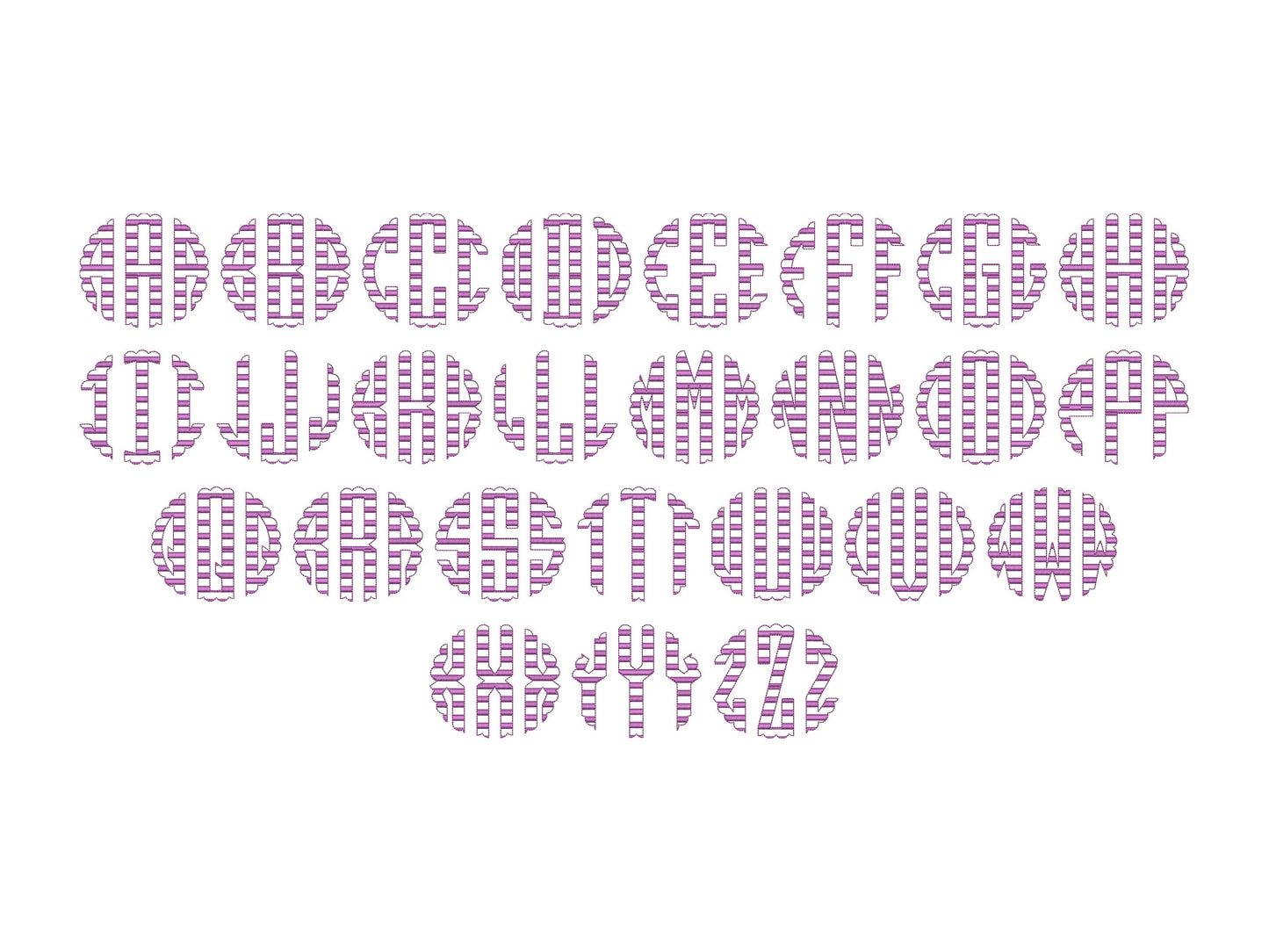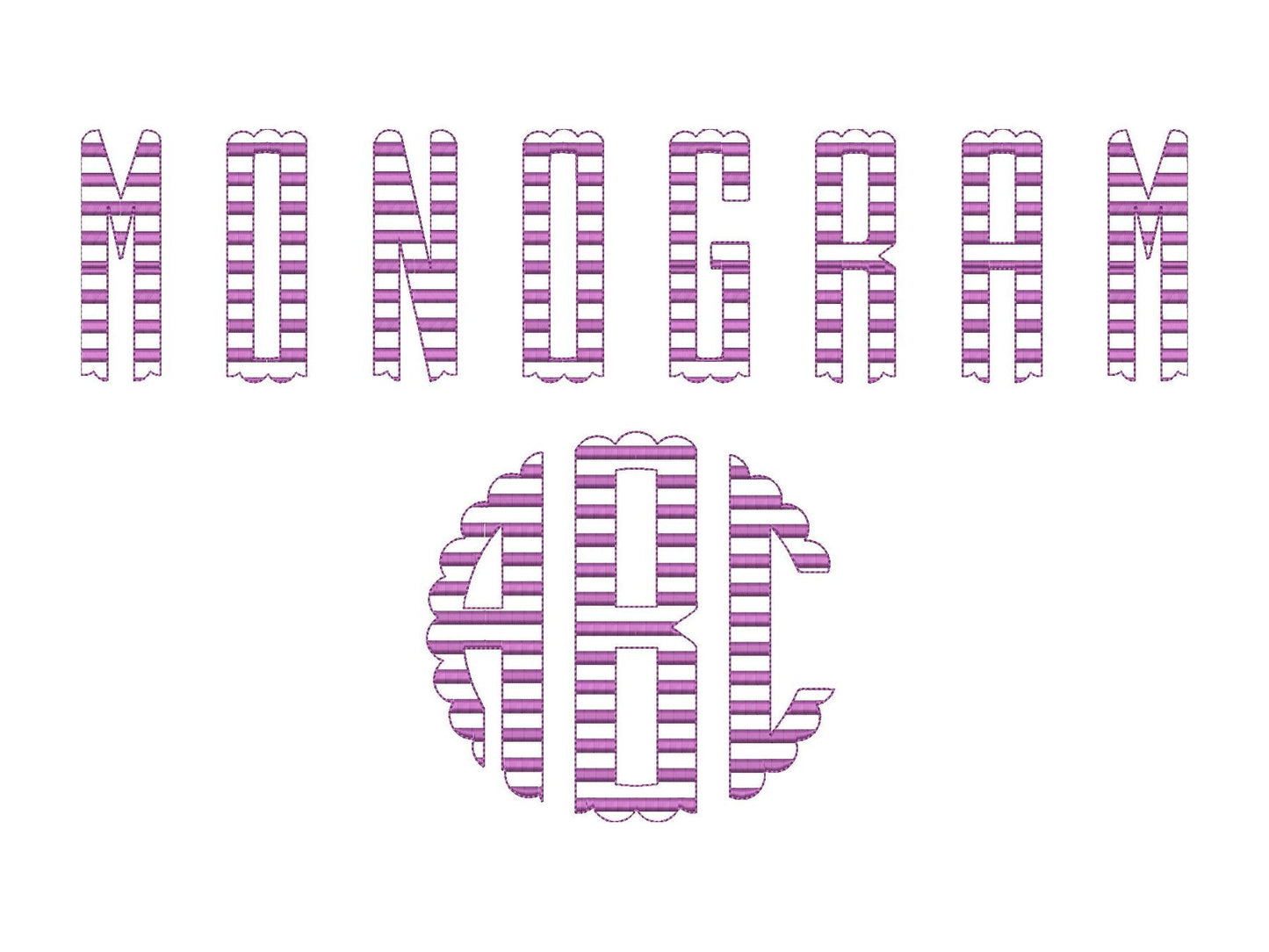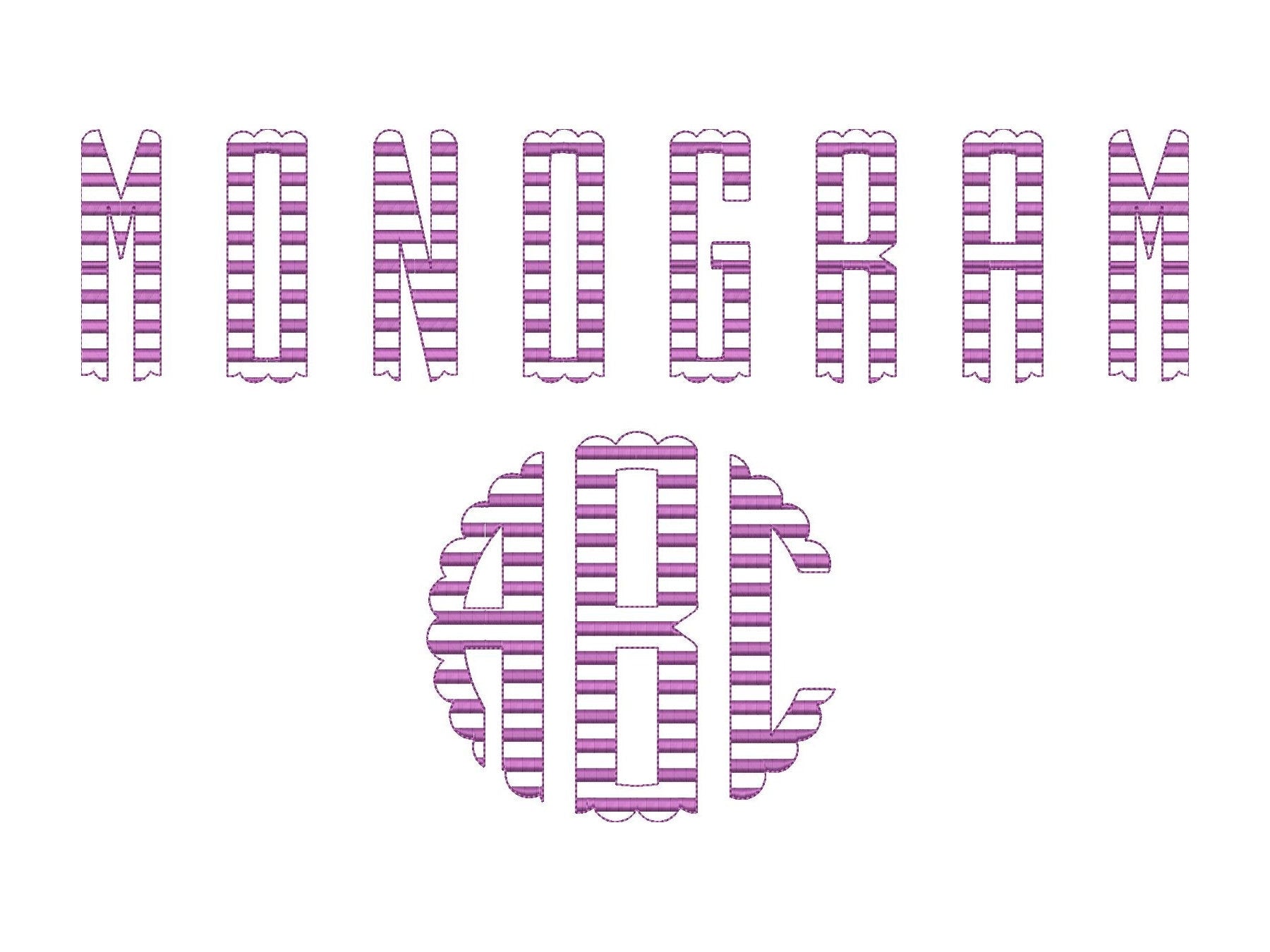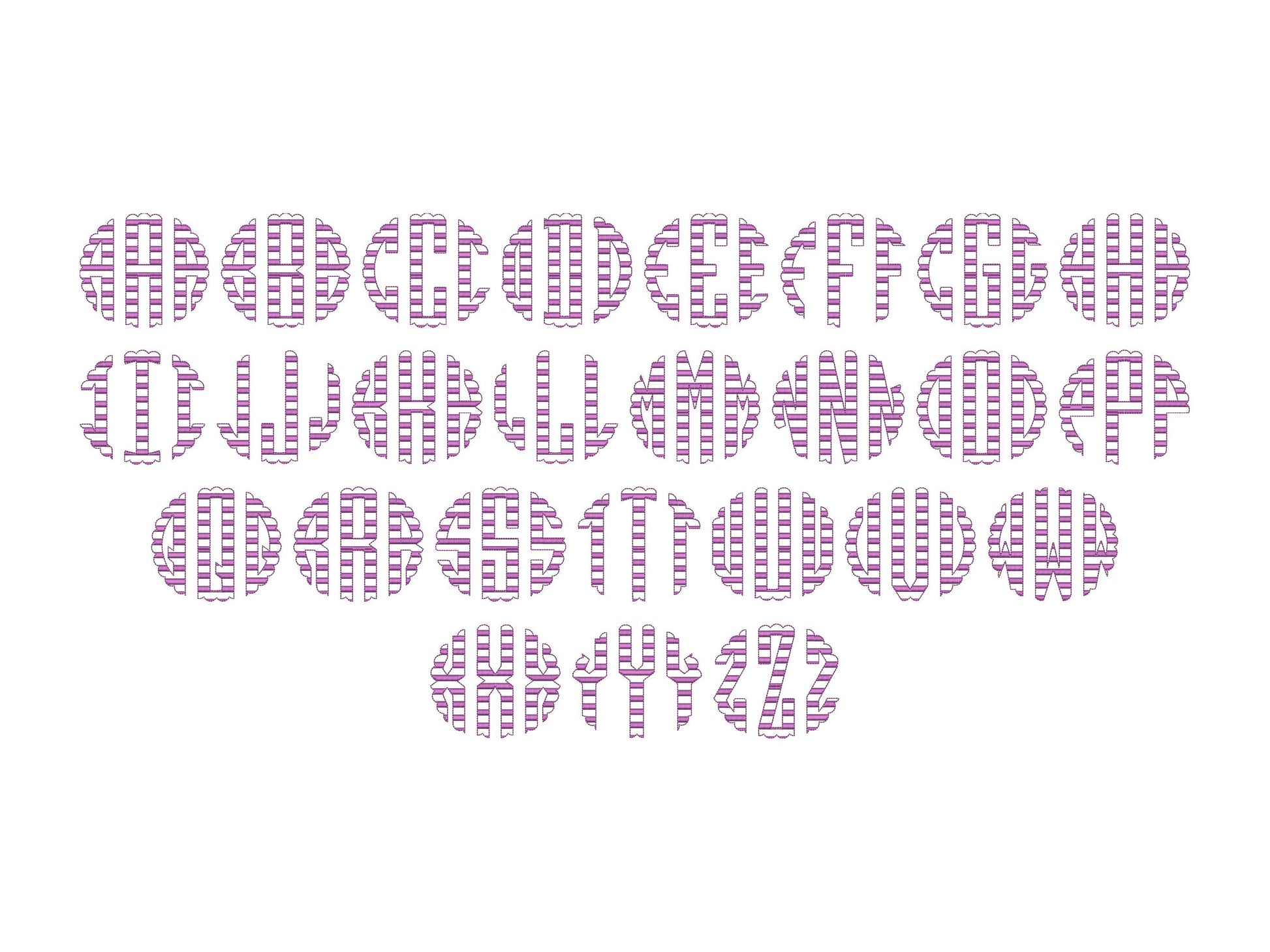
Scalloped Striped Circle Monogram Font
Or click to open the linkA classic three-letter scalloped circle monogram with stripes. Lovely for towels, pillows, totes and wedding gifts.
All 26 letters come as left, center and right pieces that join into a round scalloped monogram, in ten sizes: 2, 2.5, 2.7, 3, 4, 4.5, 5, 6, 7 and 8.5 inches. The striped effect is stitched into the letters.
- Scalloped striped circle monogram, left, center and right letters A to Z